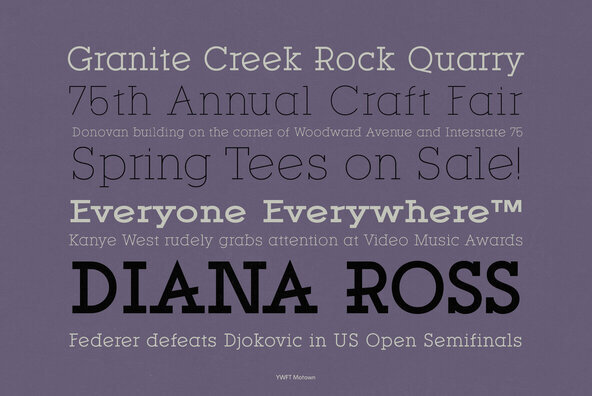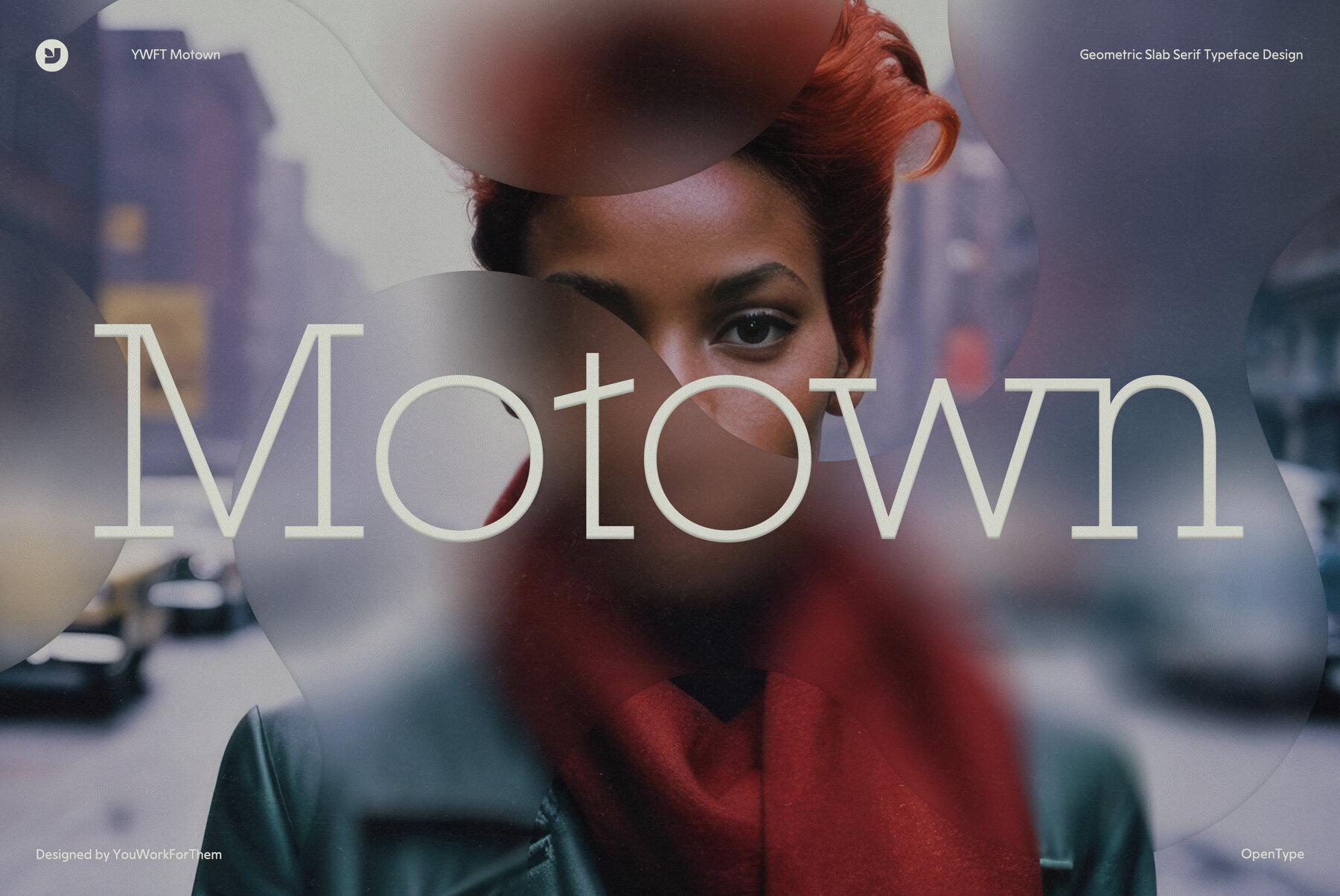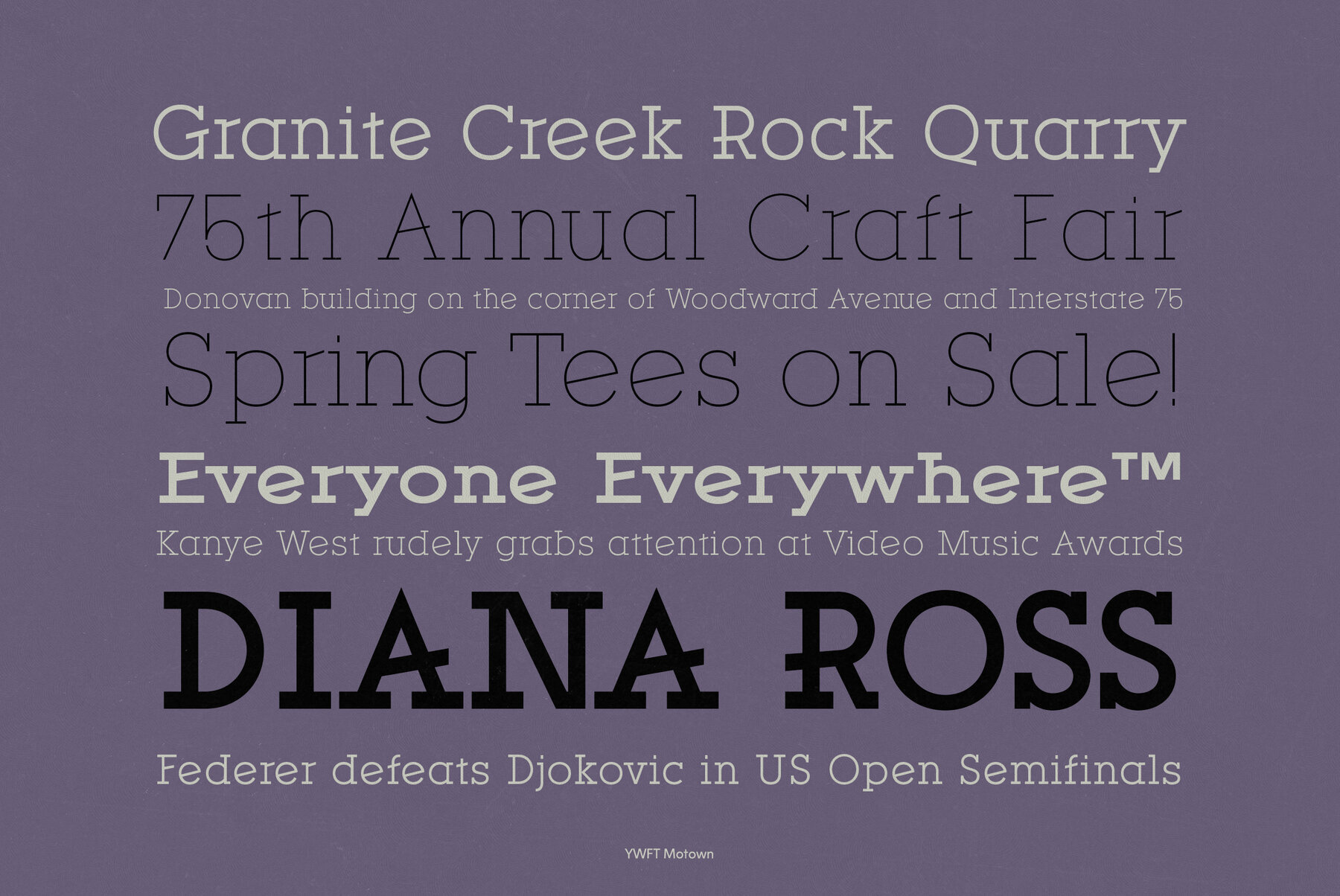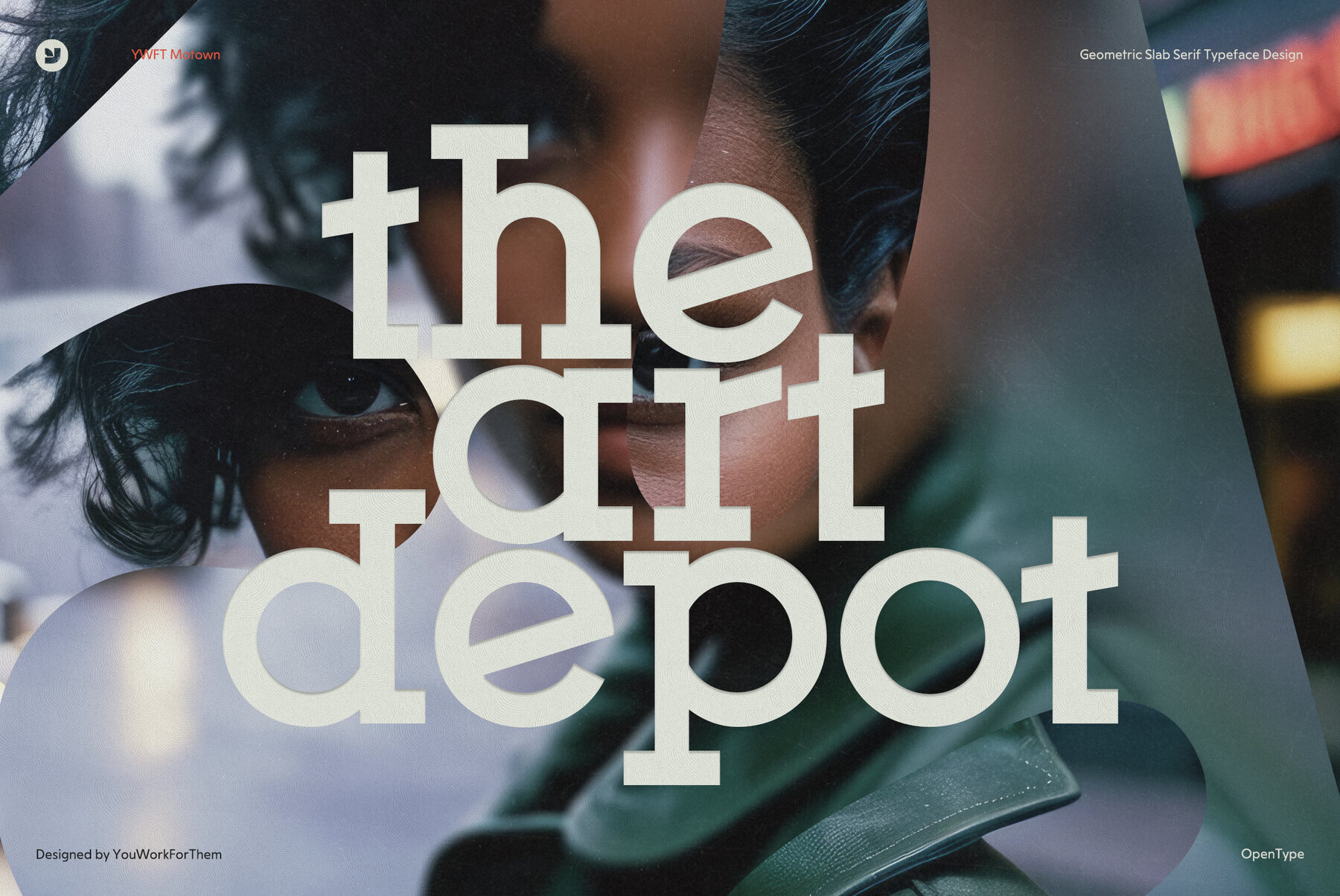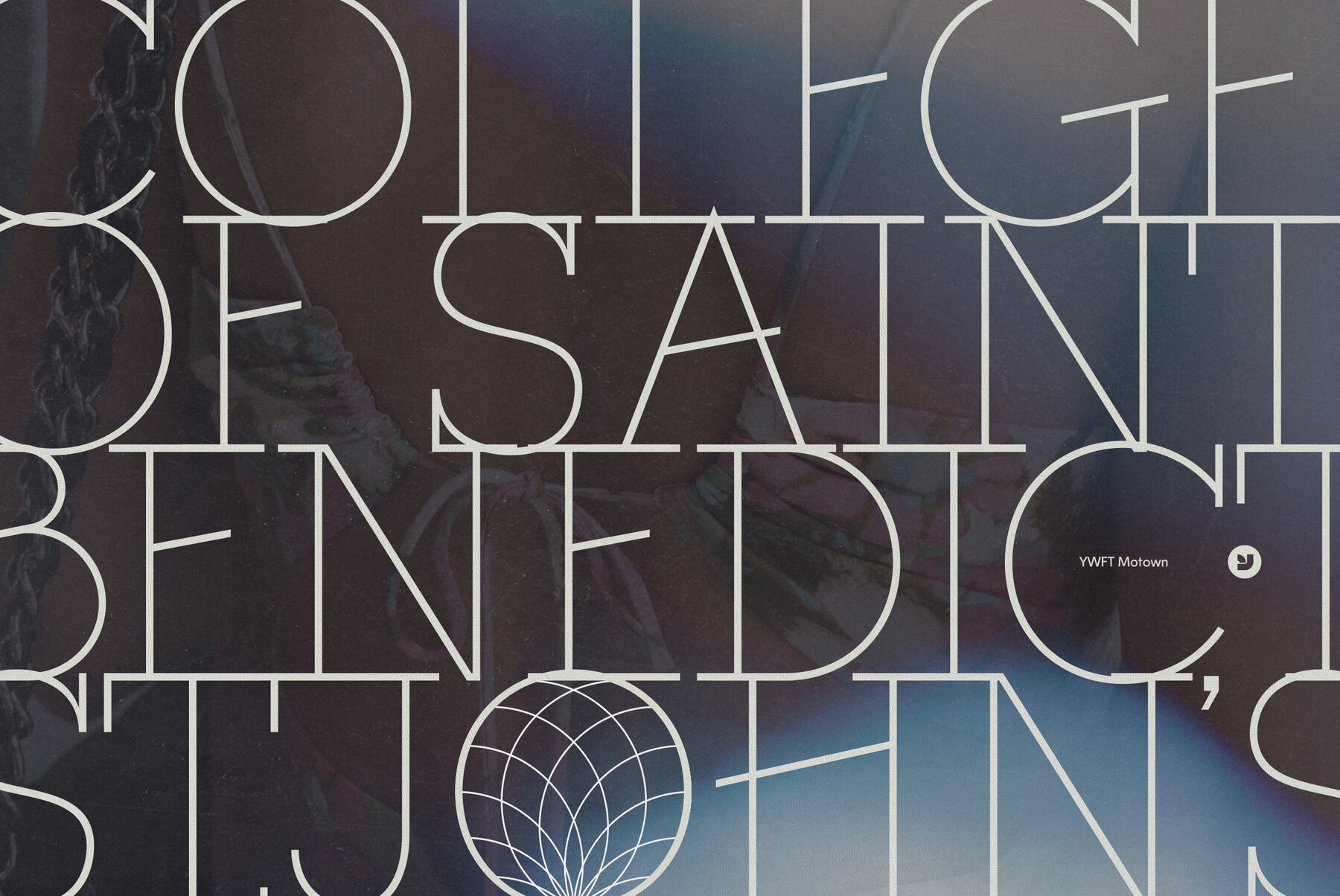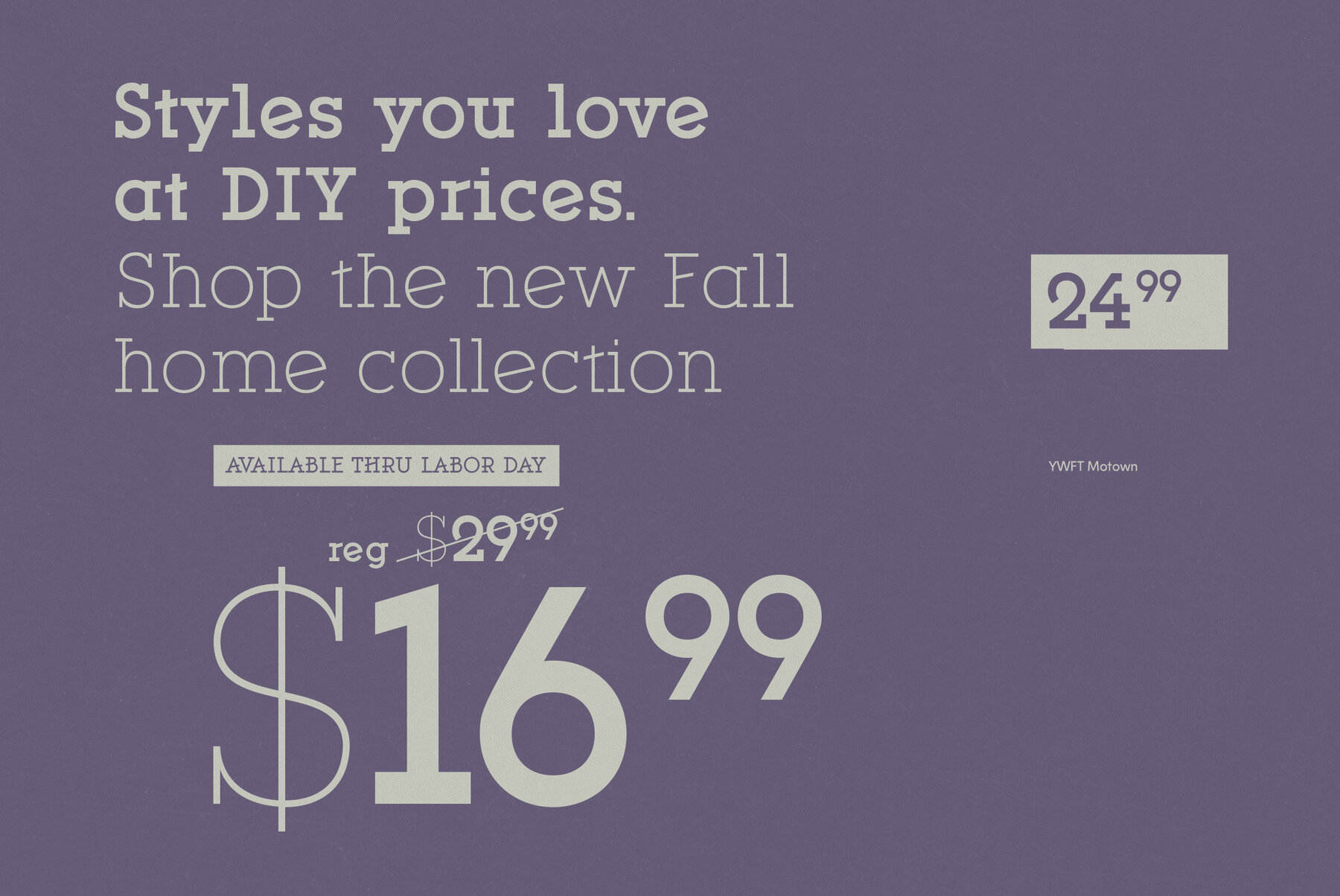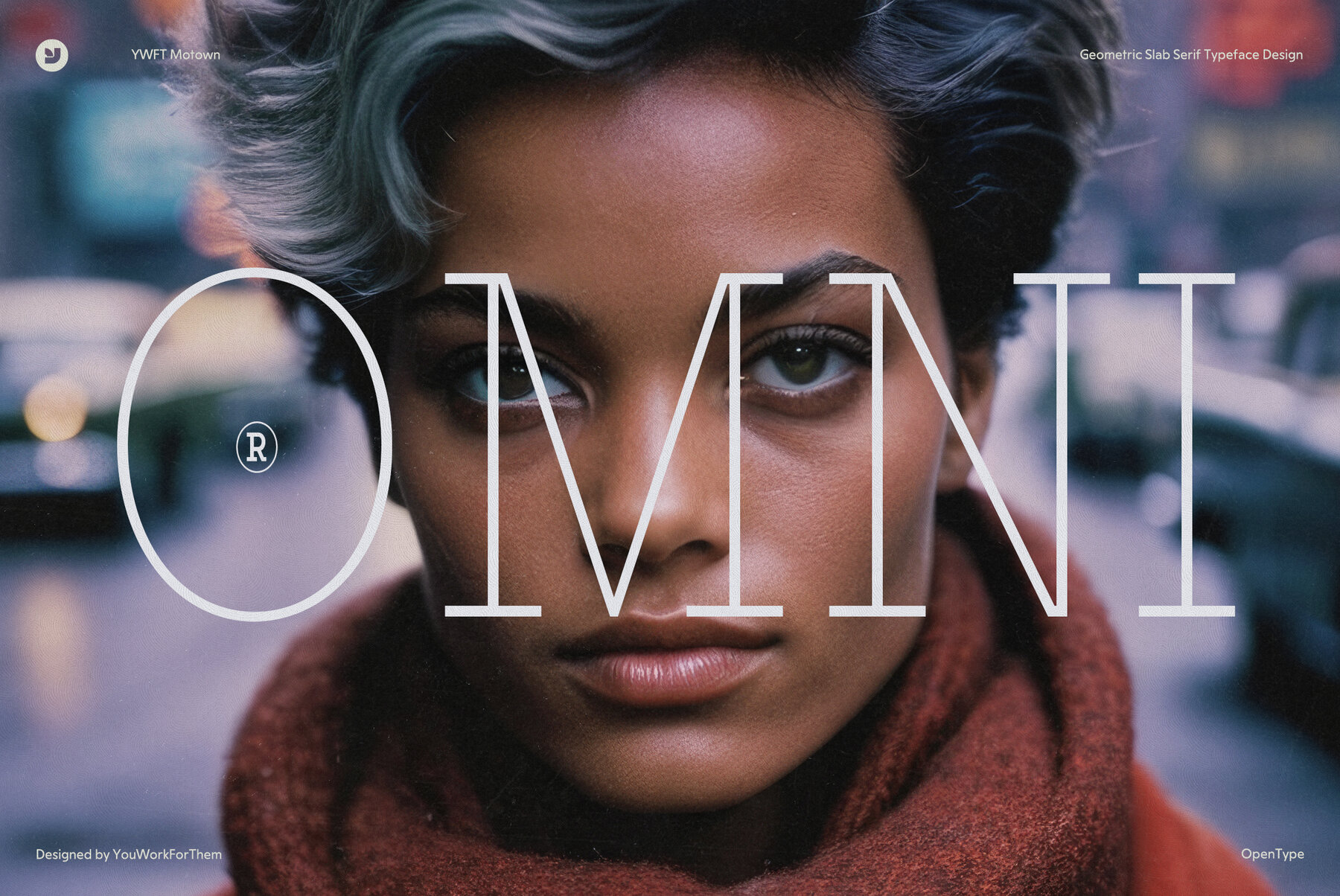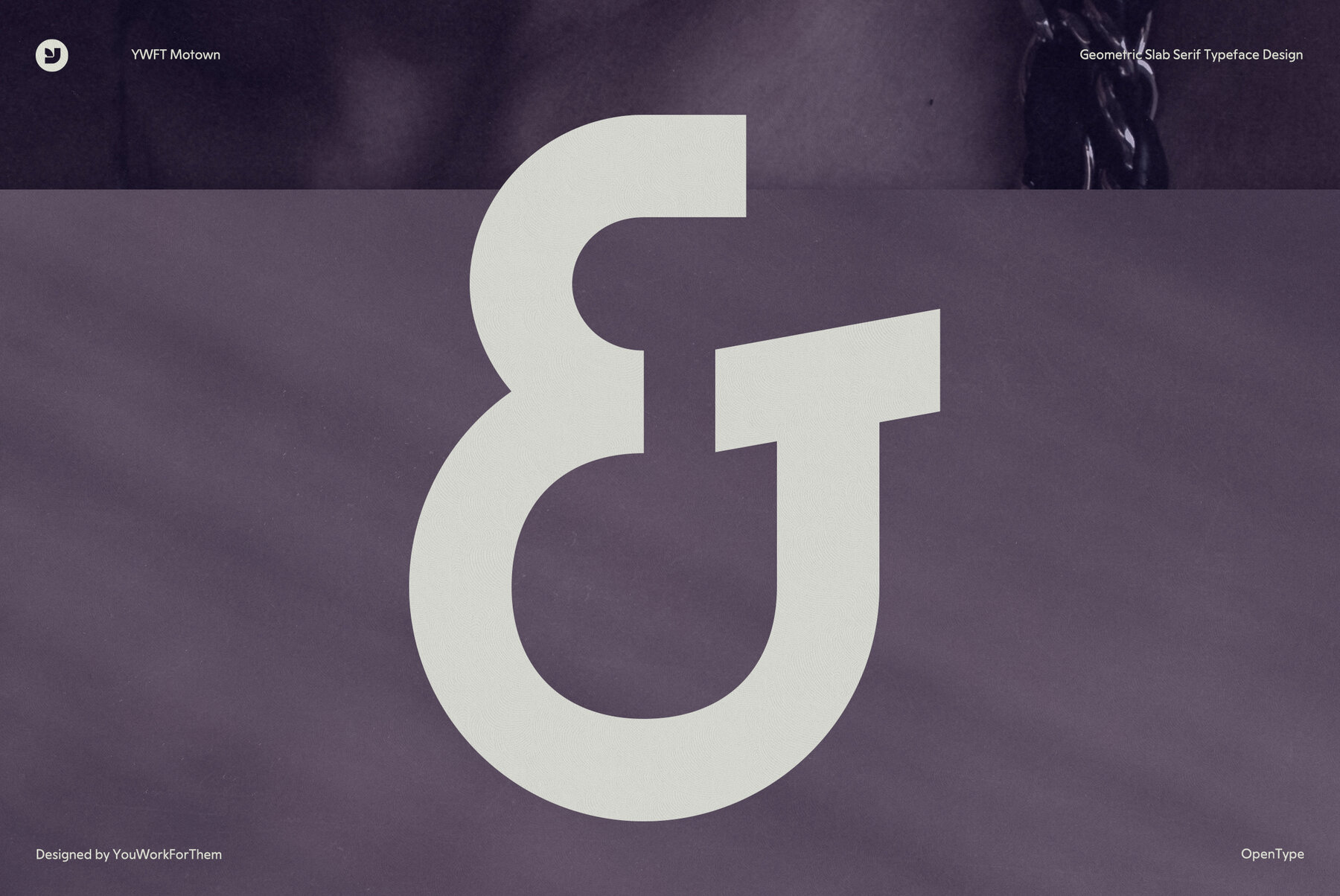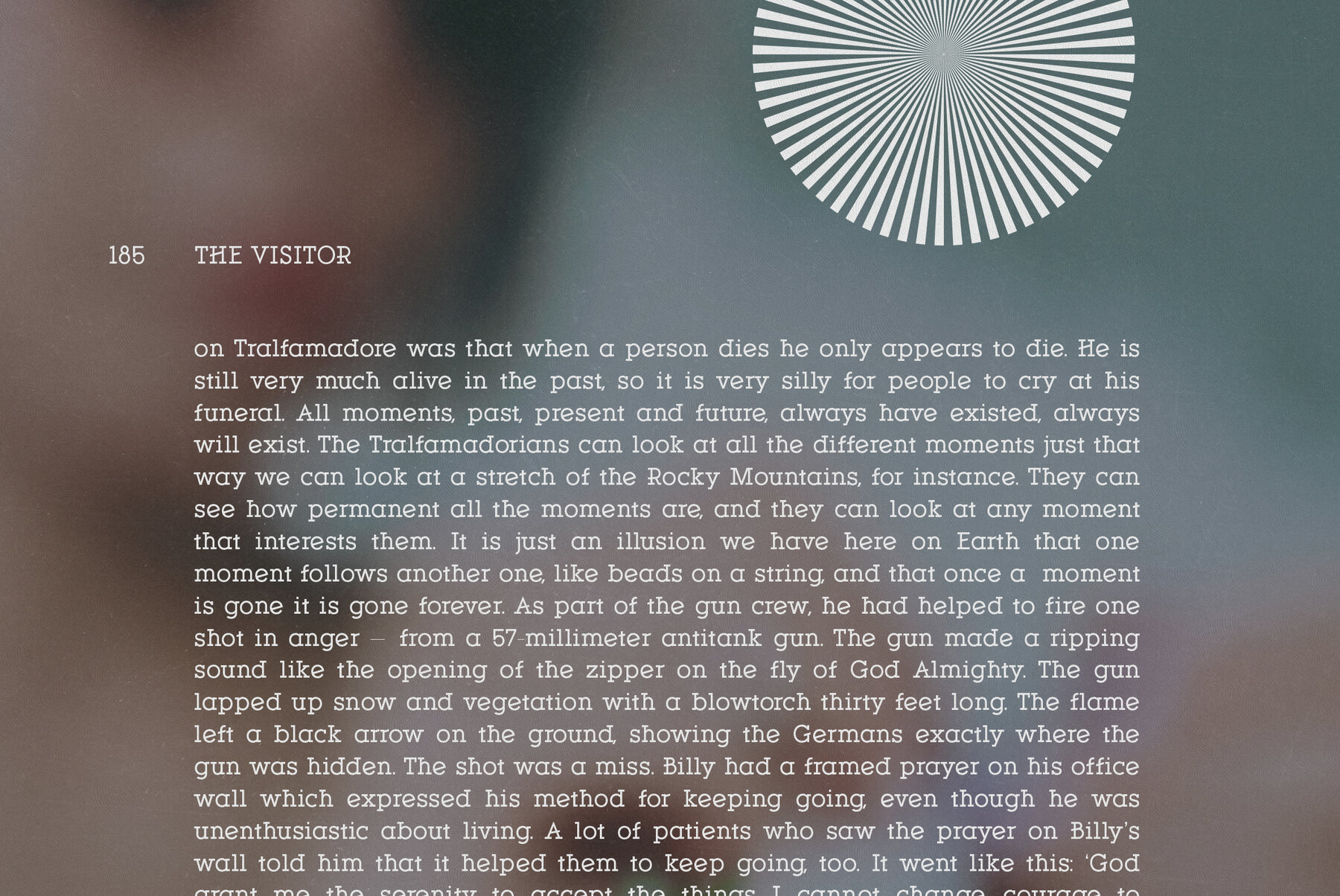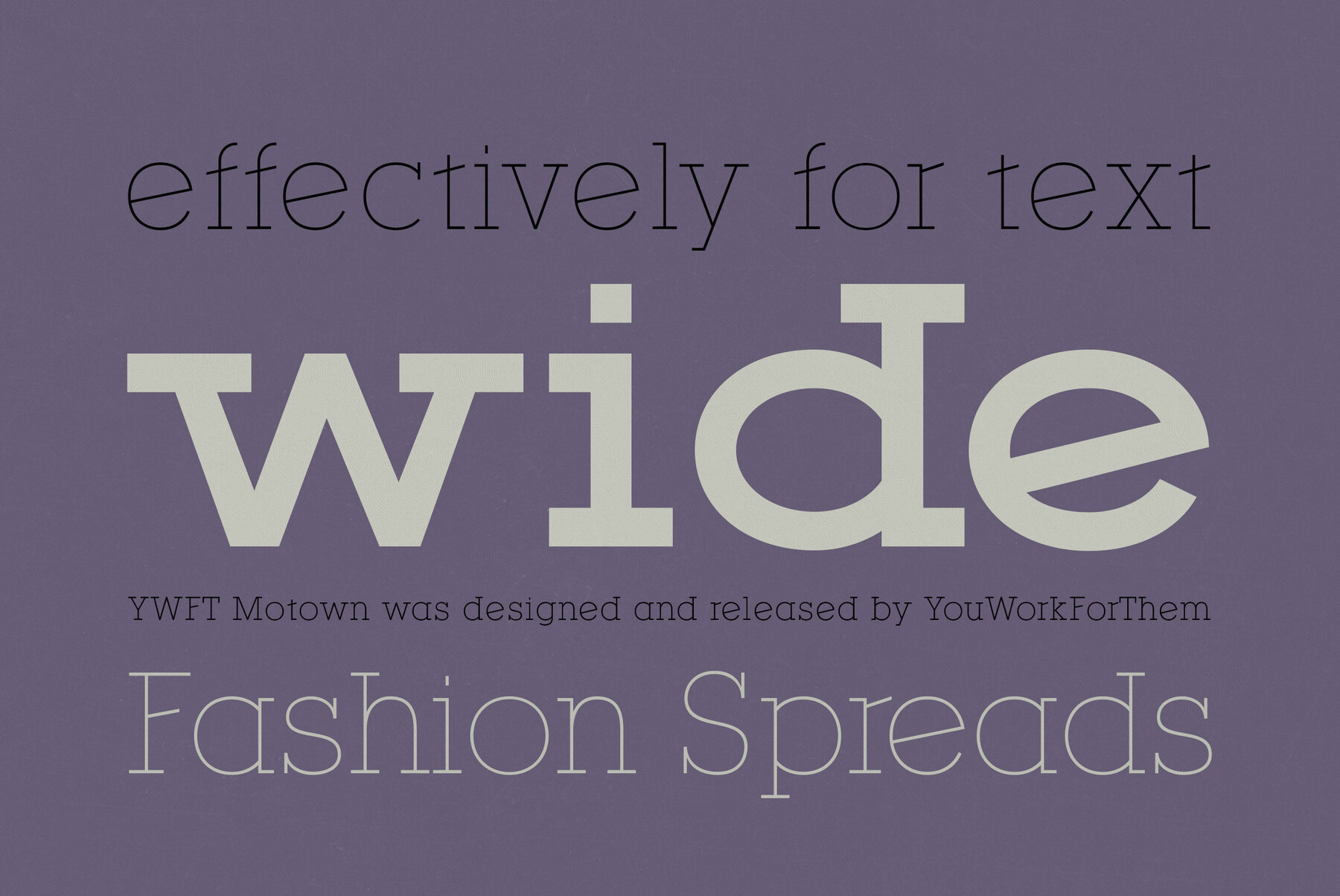
YWFT Motown
Foundry: Travis Stearns for YouWorkForThem
YWFT Motown is a geometric slab serif that contains a total of 5 weights. Although it was intended to be used as a display face, YWFT Motown's heavier weights can be used effectively for text as well. The angled crossbars and vertically symmetrical slabs give YWFT Motown a unique flair for a font of its class. The implied energy in these features also help give the font an athletic, youthful vibe. And it can also look quite classic when set appropriately for headlines, titles, and identities. YWFT Motown was designed and released by YouWorkForThem in 2009.